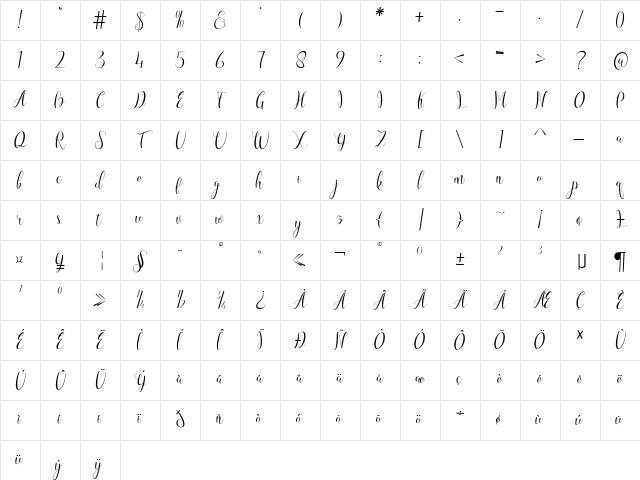
Amettha Regular Free Font
Amettha Regular
Foundry: studioad
Design Context for Amettha
Amettha is a composed and adaptable typeface that performs quietly and consistently across a wide range of design contexts.